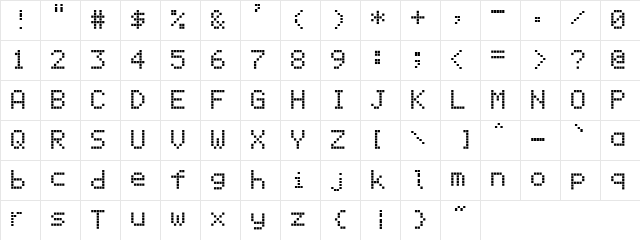
DisplayMonoB Regular
Design Context for DisplayMonoB
DisplayMonoB is built around its visual character rather than neutral utility - its distinctive forms are designed to make an impression at display sizes.
Font Pairing: Pair with a clean neutral sans-serif for body copy to let DisplayMonoB's character lead without overwhelming the composition.
Pro Tip: Use DisplayMonoB exclusively at display sizes - it was designed to be seen, not read at length. Let a neutral companion handle body copy.